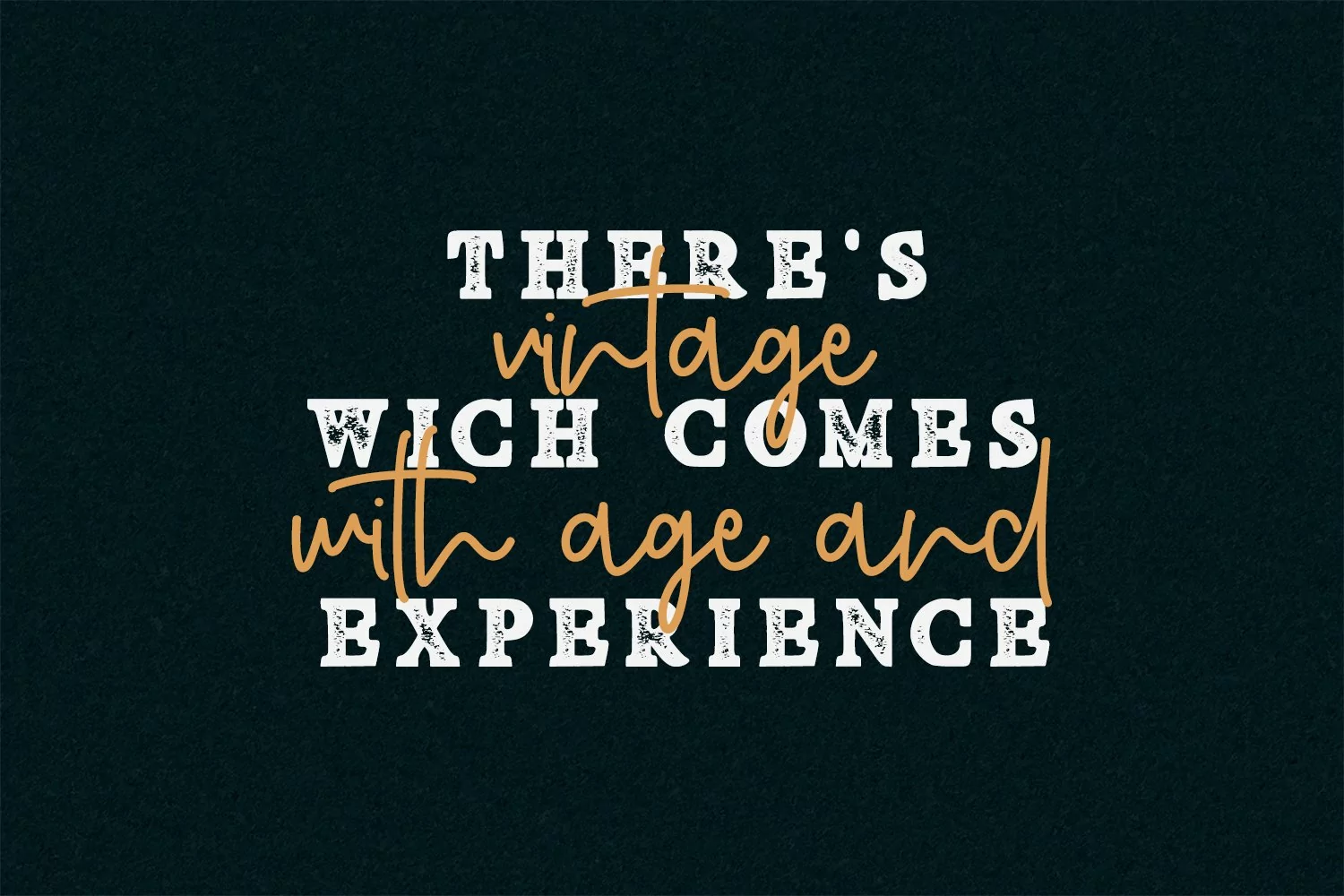
Fiber - Vintage Serif Font
**Fiber - Vintage Serif Font**
Fiber is a vintage serif family including Regular and Textured versions as well as Italic versions of each. it's perfect for logos, name card, magazine layouts, invitations, headers, or even large-scale artwork. Wolfer includes 4 OTF & TTF files within the Zip folder.
- All Caps Font
- Punctuation and Number
- Multilingual Language